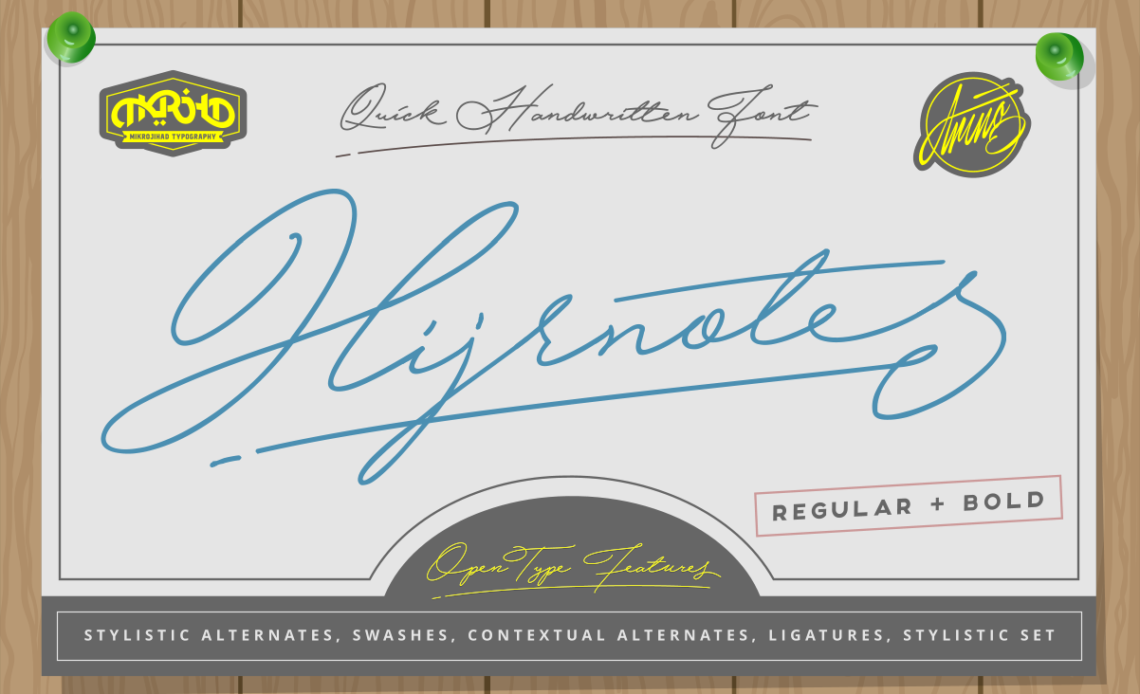
Embark on a captivating calligraphic journey with Hijrnotes Font, a meticulously crafted script font family that adds a touch of elegance and charm to your creative endeavors. Inspired by the delicate strokes of handwritten notes, this font captures the essence of personal expression and transforms your words into works of art.
As our first collaboration with the renowned Swedish Type Designer Mans Greback (Aringtype), Hijrnotes Font stands as a testament to the fusion of creative minds. Its script-style design dances across your designs, evoking a sense of nostalgia and timeless beauty.
Immerse yourself in the boundless possibilities offered by Hijrnotes Font. With two weights – Regular and Bold – you'll discover the perfect balance for any project, from autograph designs and name cards to neon signs and quote typography posters.
Hijrnotes's intricate character set, featuring hundreds of alternate characters, is a treasure trove for typographers and designers. Unleash your creativity as you explore the world of swashes, ligatures, and stylistic sets, crafting unique and visually stunning typography.
Experience the magic of Hijrnotes Font as it brings life to your autograph designs, adding a touch of sophistication to your signature. Create name cards that leave a lasting impression, showcasing your professional identity with a dash of artistic flair.
In the realm of signage, Hijrnotes Font shines as a captivating choice. Imagine neon signs that captivate onlookers with their radiant glow, illuminating your message with a mesmerizing brilliance.
Let Hijrnotes Font elevate your quote typography posters and flyers, transforming ordinary words into extraordinary statements. Its enchanting script style adds an air of elegance and charm, making your words resonate with emotional depth and artistic allure.